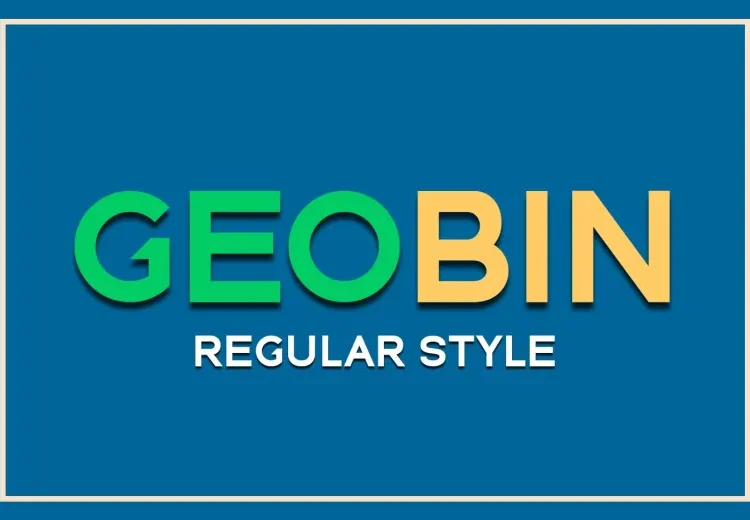
Geo Bin Font
Geo Bin is a cutting-edge font that stands out with its modernist capital letter design, offering a visually compelling blend of geometric precision and contemporary style. Created by LJ-Design Studios, this font is available in two distinct styles: Regular and Grunge.
The Regular style of Geo Bin presents a clean, modernist look with sharp, geometric lines that make it perfect for creating bold headlines, logos, and branding materials. Its clarity and precision make it ideal for any design that demands a sophisticated and impactful visual presence.
On the other hand, the Grunge style of Geo Bin introduces a touch of ruggedness and texture, adding a layer of depth and character to your projects. This variant is particularly well-suited for designs that seek to combine modern aesthetics with a hint of vintage or distressed elements, making it versatile for a wide range of artistic and creative uses.
Whether you’re working on digital art, print media, or branding projects, Geo Bin offers flexibility and style. Its geometric roots provide a structured, modern look, while the Grunge style adds an element of uniqueness and edge.